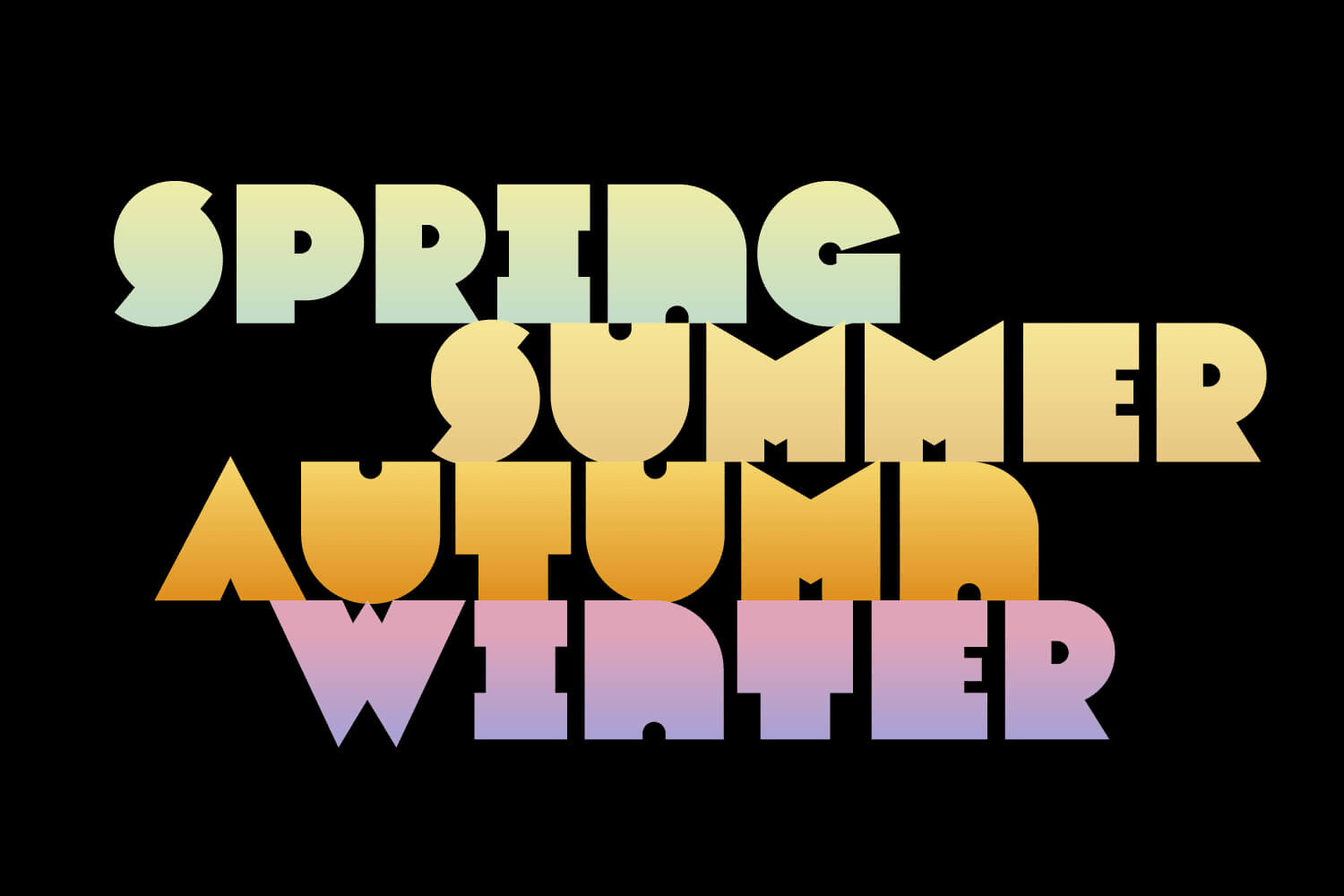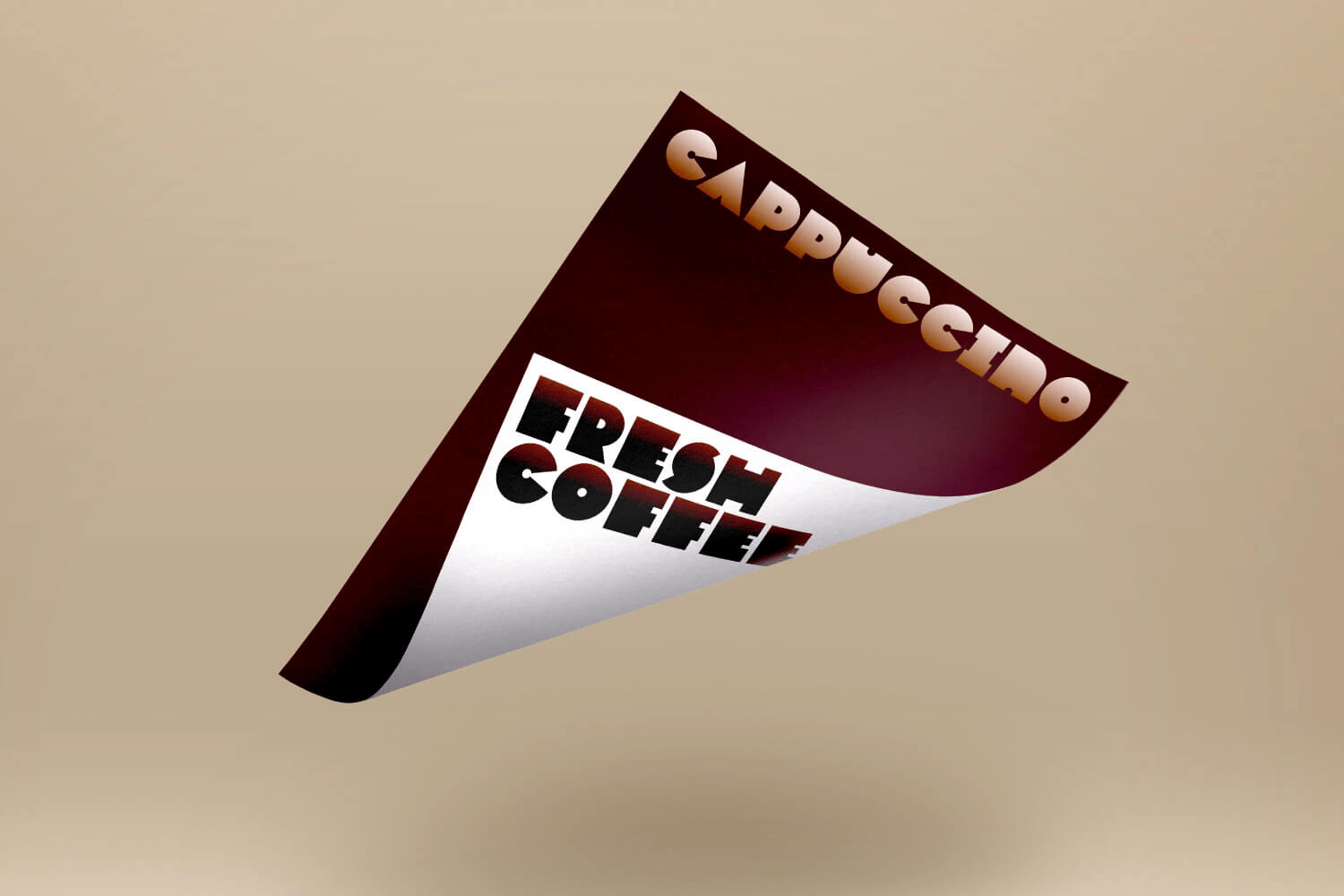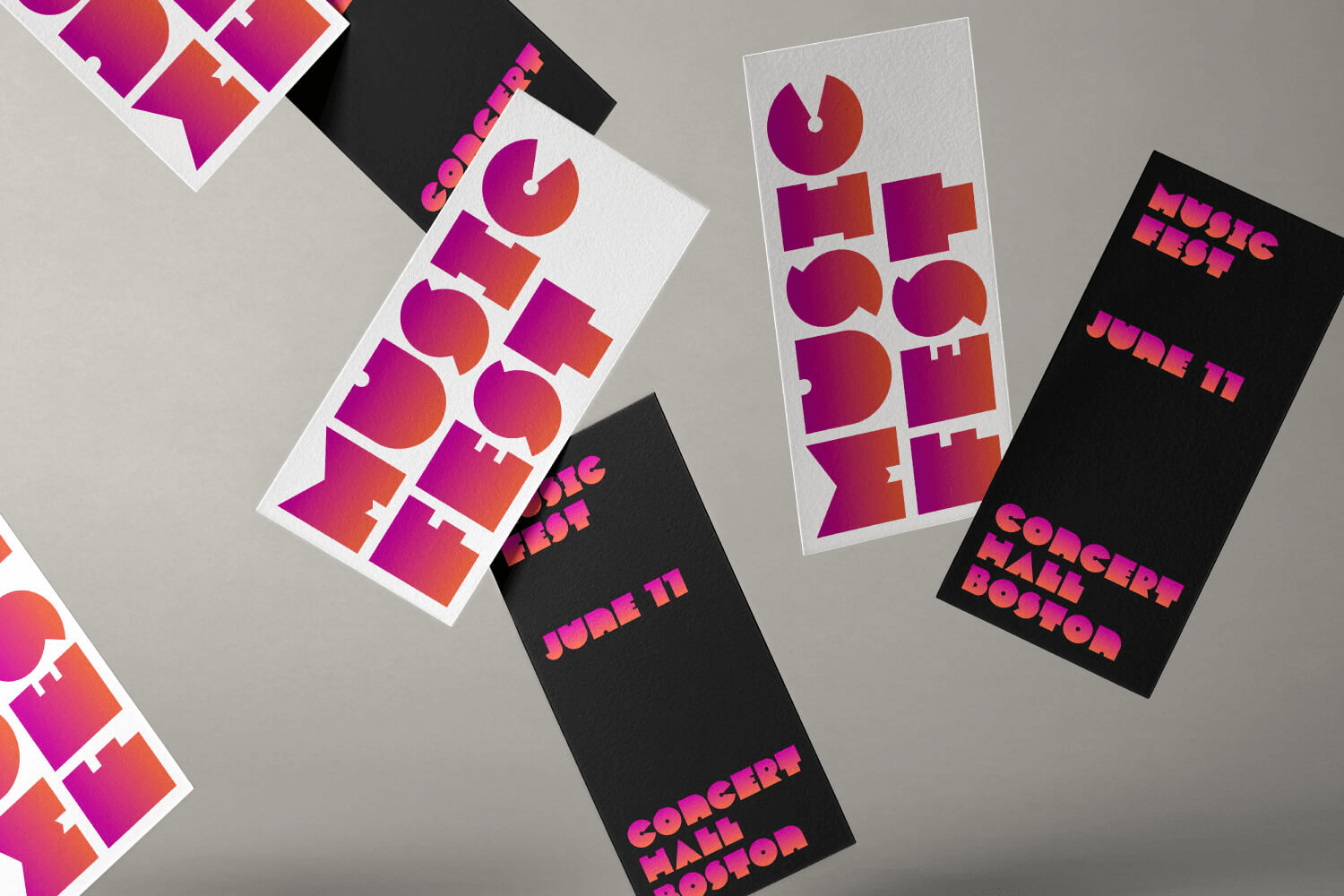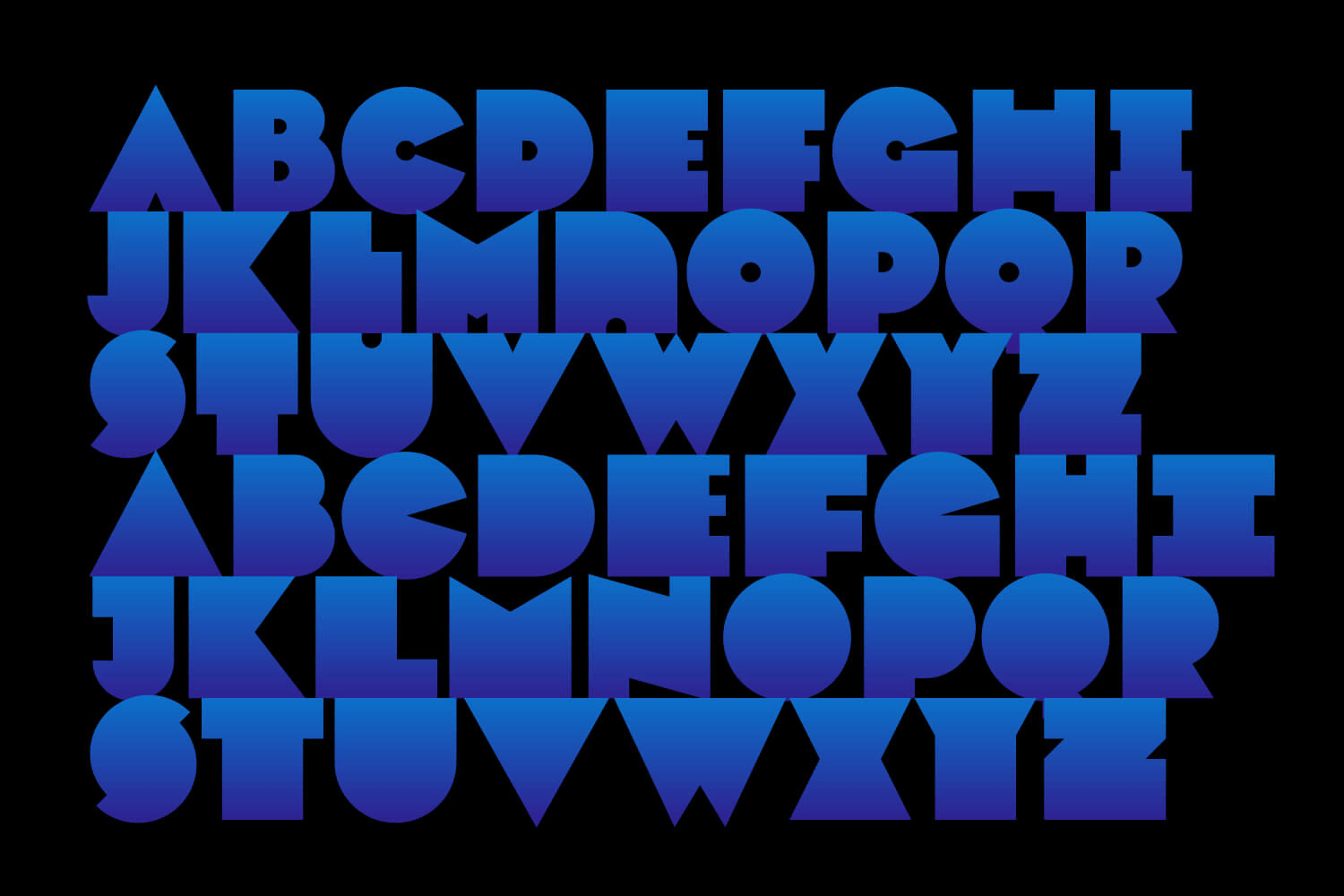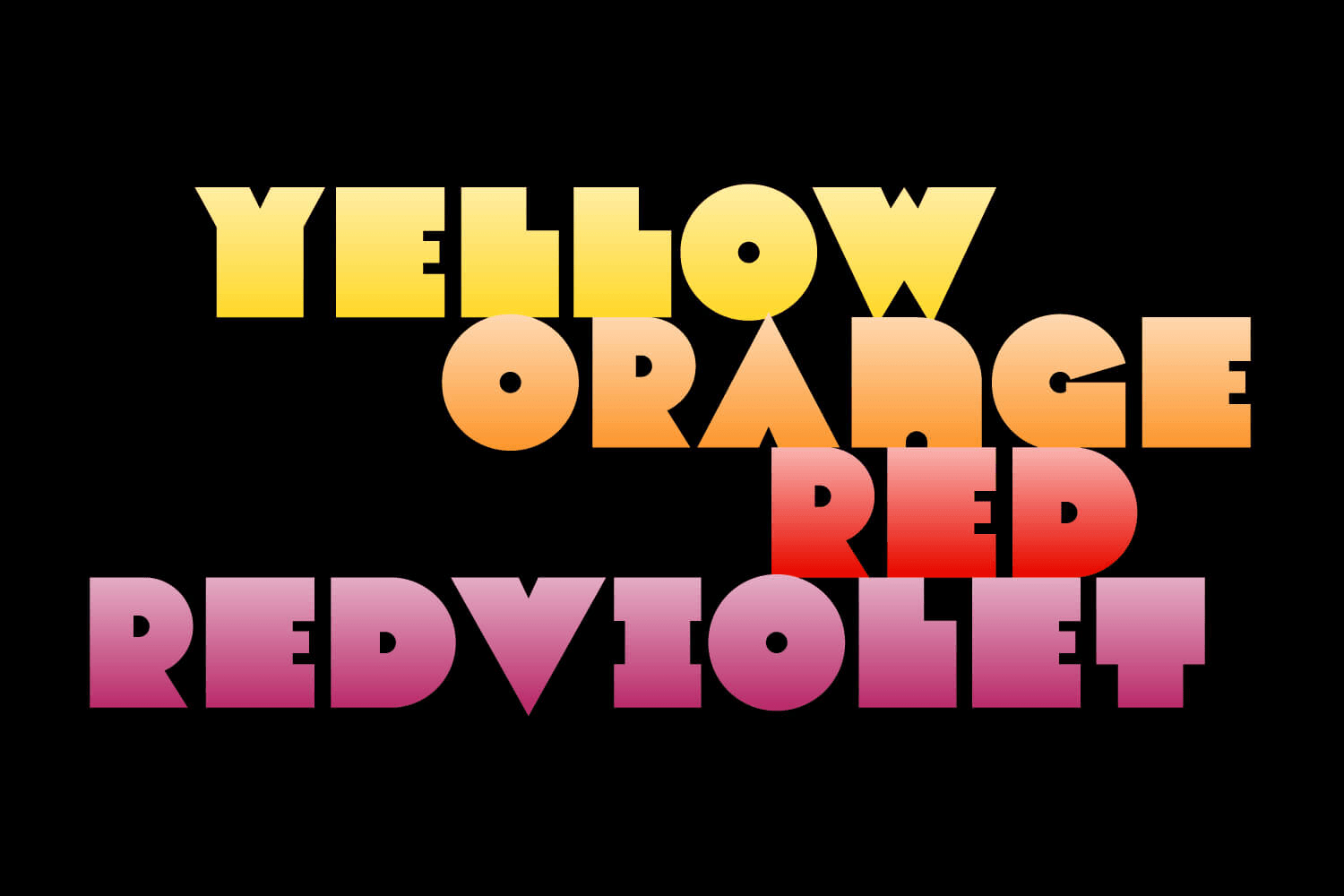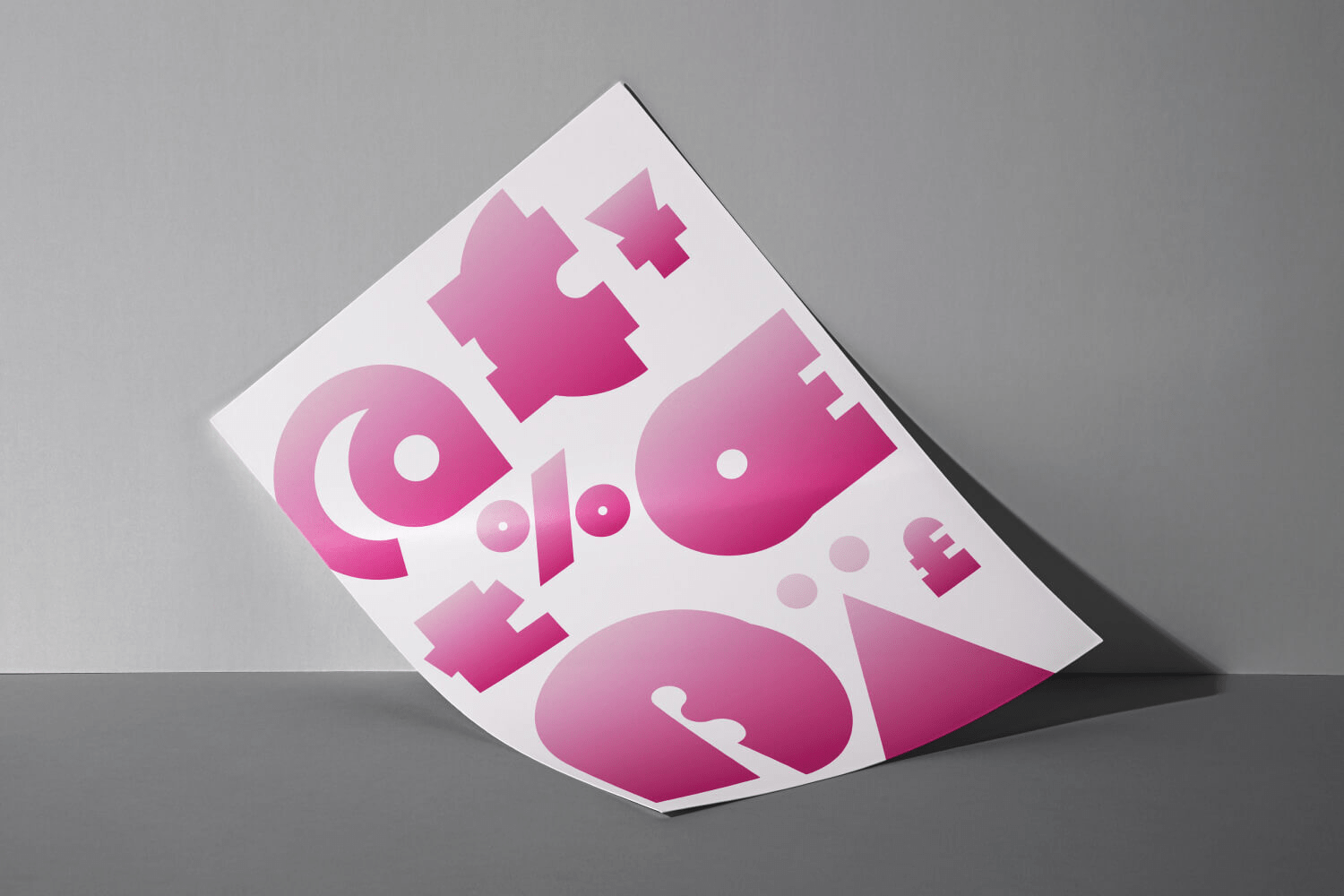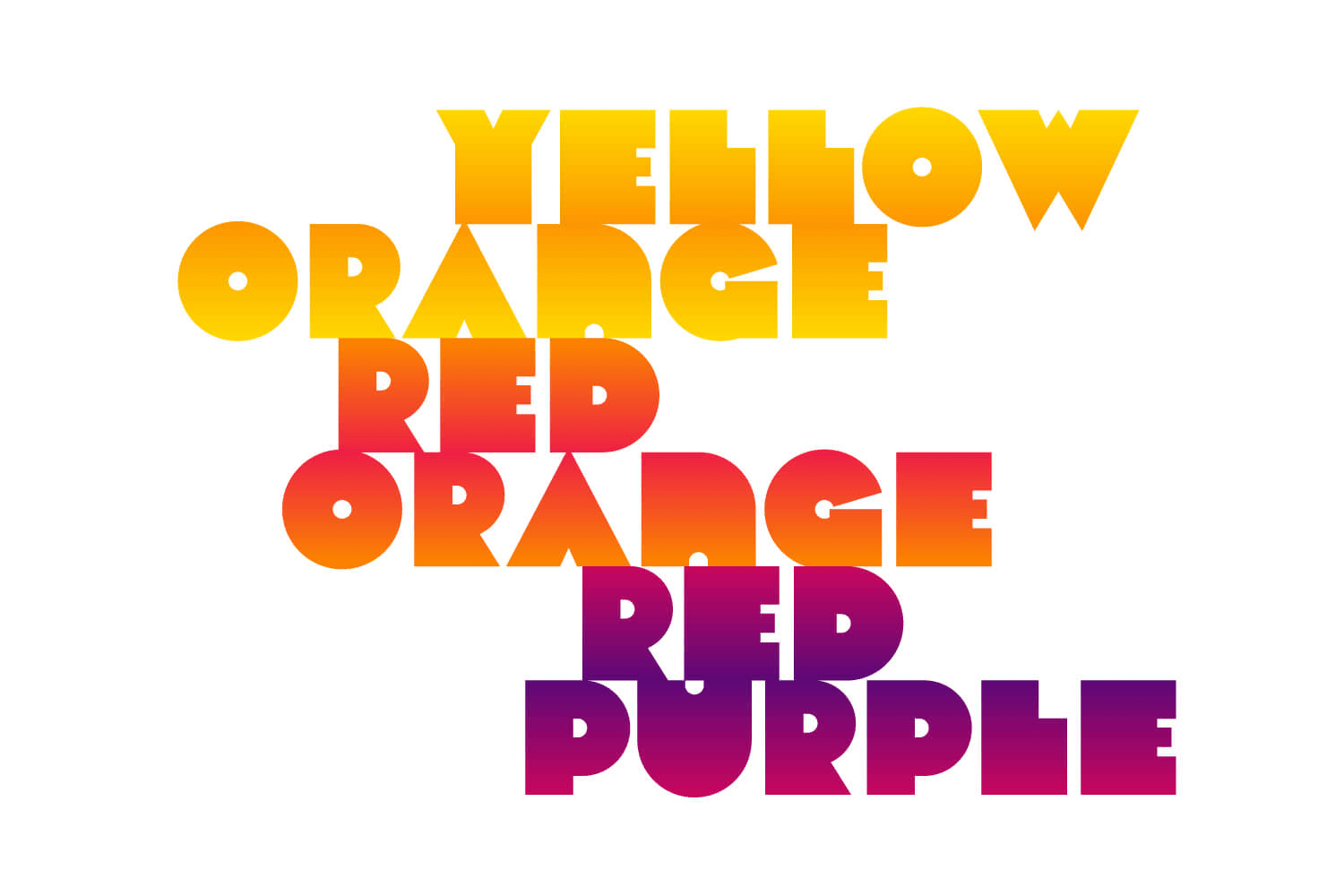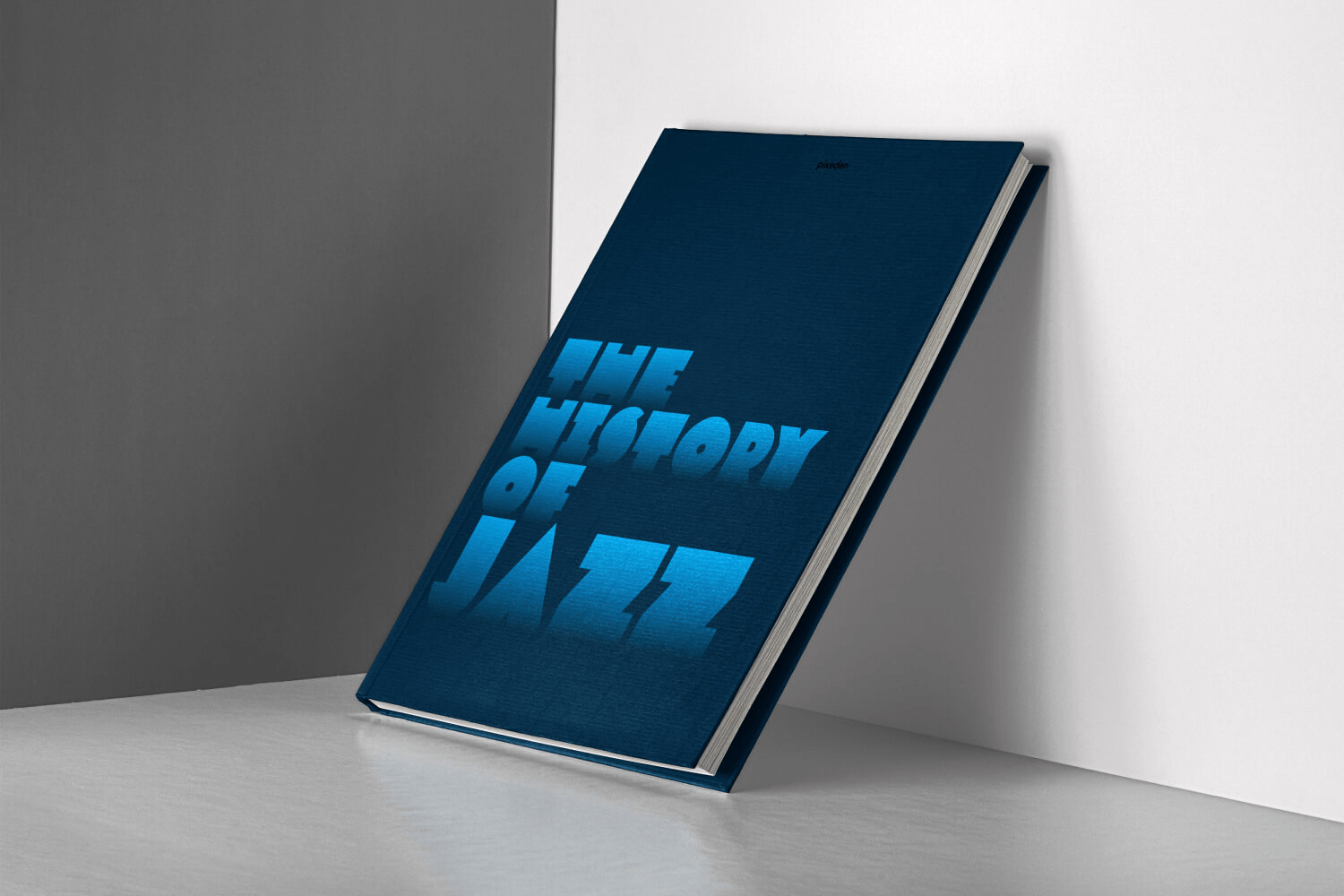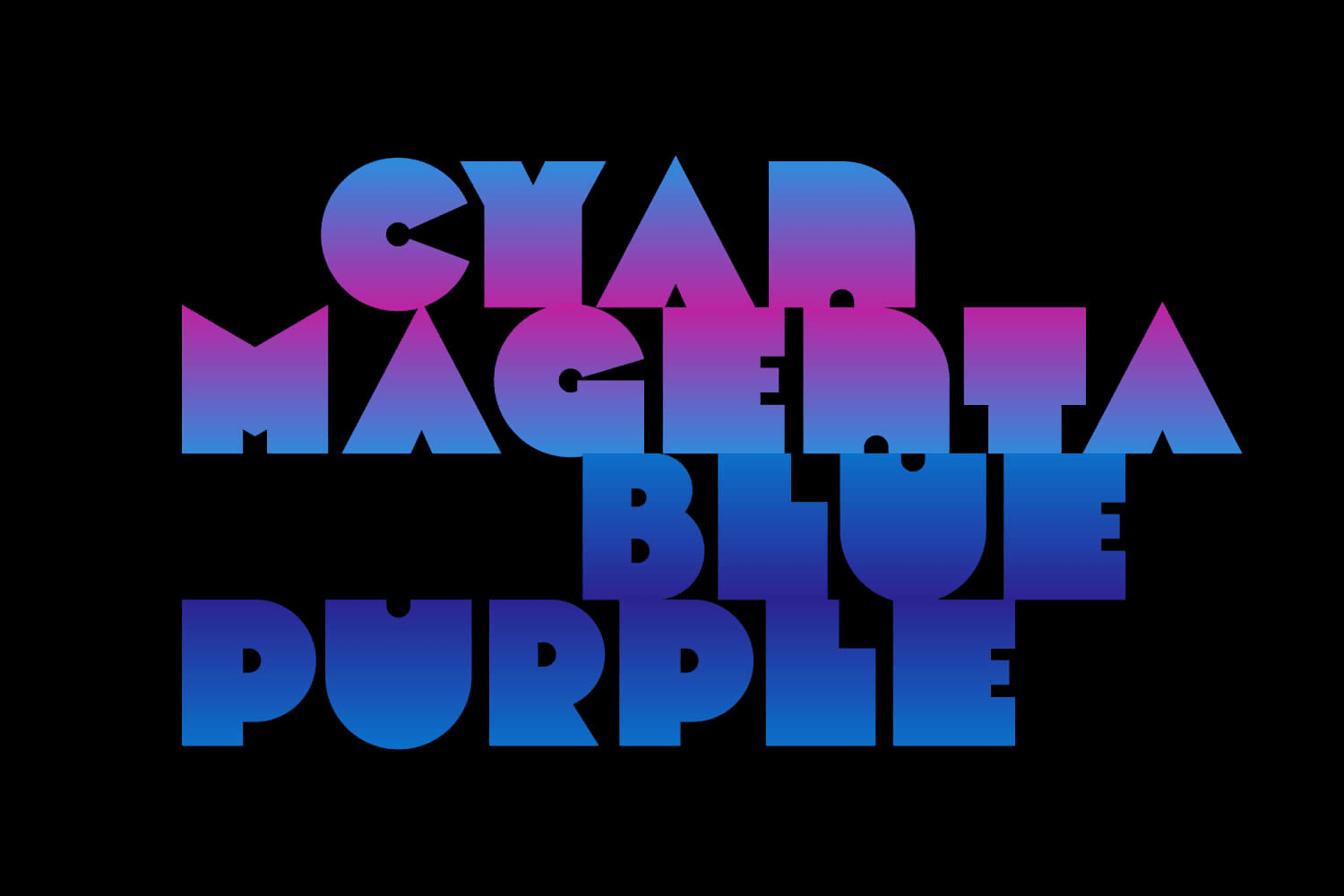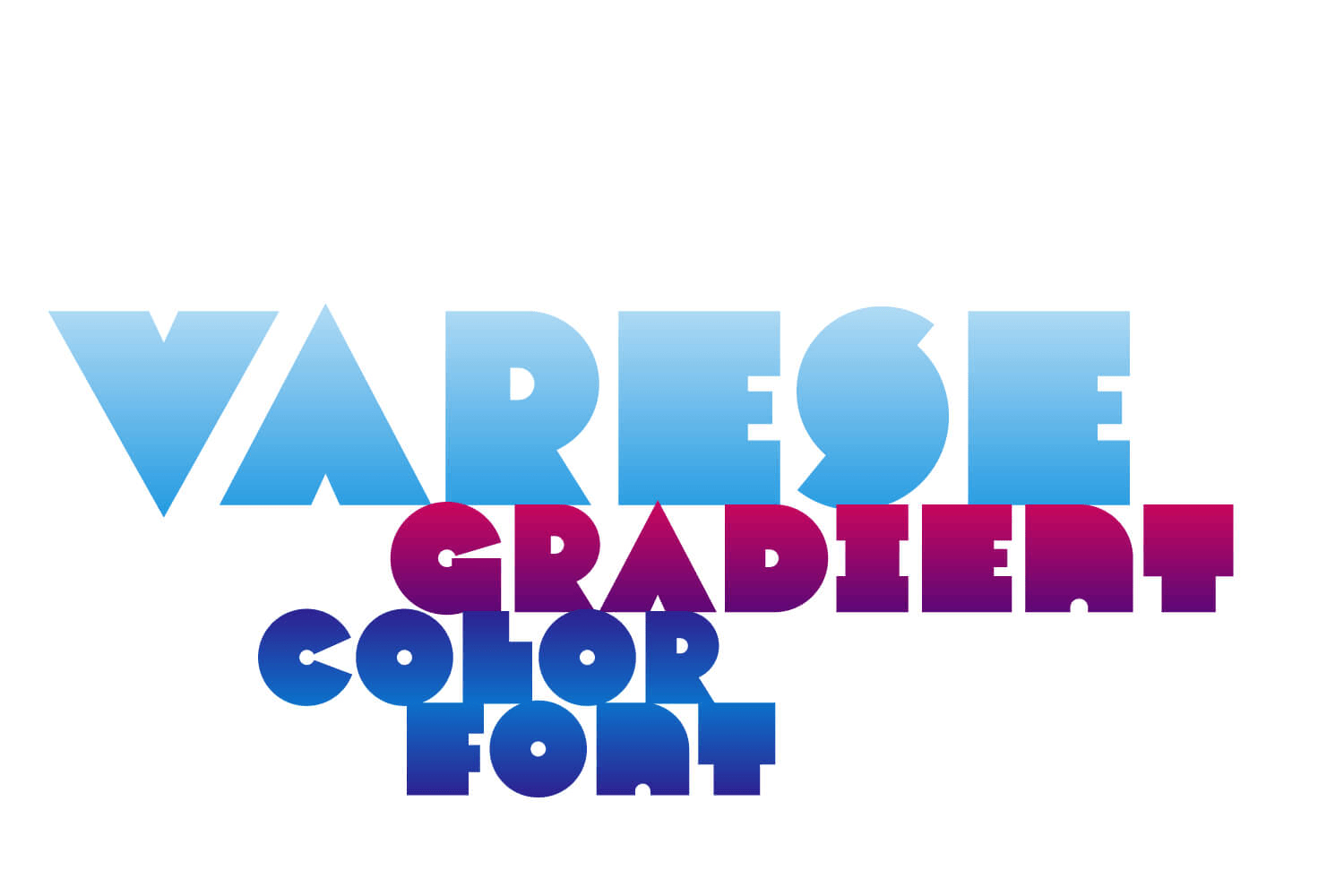
Varese Gradient
About Varese Gradient
Varese Gradient is a color font for display, headlines, or large body text. Use it for bold graphic statements or a vintage mood. Its geometric style is inspired by Art Deco and early 1900s European travel posters. This typeface will set a friendly and…